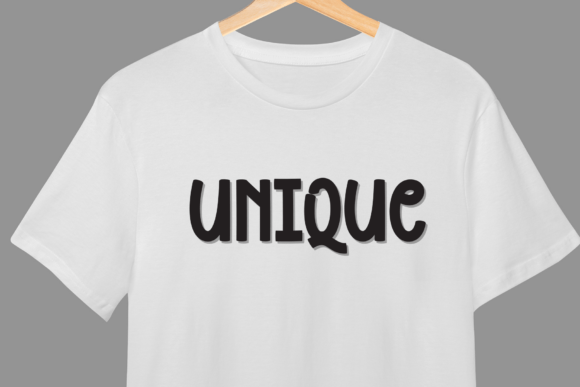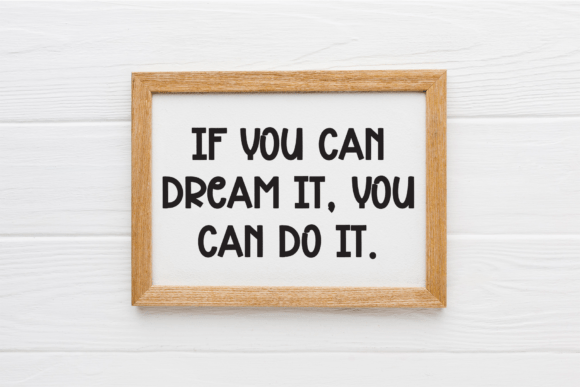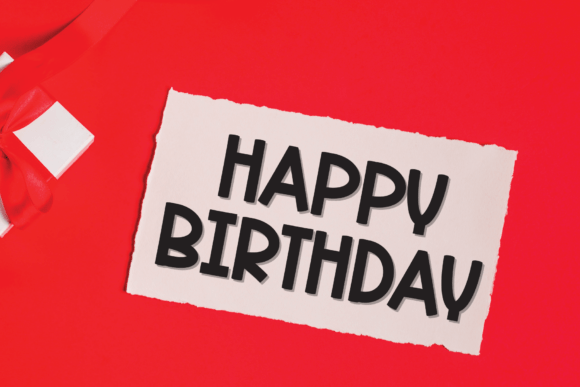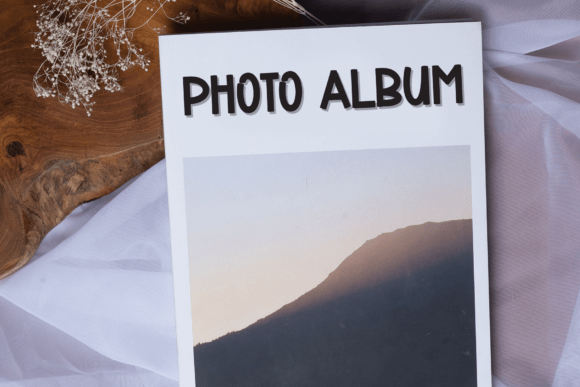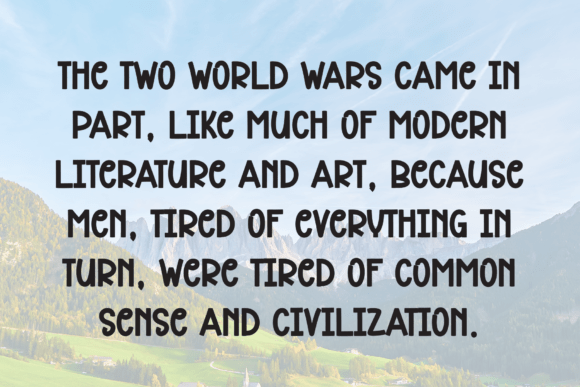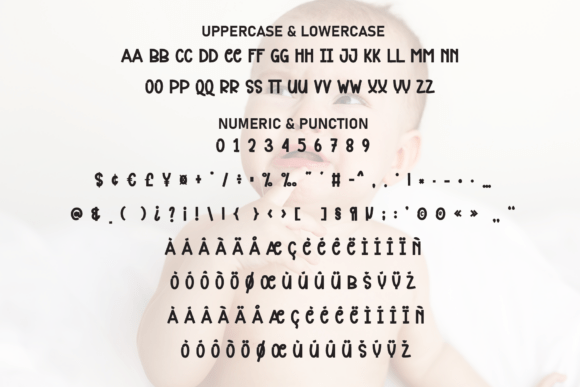
Baby Crush Font: The Perfect Blend of Modern Simplicity and Playful Charm
In the world of typography, fonts play a crucial role in conveying the tone and personality of a brand or design. For designers and crafters looking for a font that embodies a casual yet stylish vibe, Baby Crush Font is an excellent choice. This article will delve into the features, benefits, and uses of Baby Crush Font, exploring how it can elevate your designs and add a fresh touch to your projects.
What is Baby Crush Font?
Baby Crush Font is a casual display font that seamlessly blends modern simplicity with a playful, approachable charm. Its clean shapes, soft edges, and well-balanced letterforms make it an ideal choice for a wide range of design applications. Whether you’re working on posters, branding, packaging, or social media graphics, Baby Crush Font is designed to capture the essence of relaxed design while maintaining clarity and style.
Key Features of Baby Crush Font
- Clean Shapes: Baby Crush Font boasts clean, geometric shapes that provide a modern and sleek appearance. These shapes ensure that the font remains legible and stylish, even at larger sizes.
- Soft Edges: The soft edges of Baby Crush Font add a touch of warmth and approachability, making it perfect for designs that require a friendly and inviting tone.
- Well-Balanced Letterforms: Each letterform in Baby Crush Font is carefully crafted to ensure balance and harmony. This balance contributes to the font’s overall readability and aesthetic appeal.
- Versatile Character: Baby Crush Font has a versatile character that makes it suitable for a variety of design projects. Its unique blend of modern simplicity and playful charm allows it to adapt to different contexts and themes.
- Eye-Catching Appeal: The font’s design ensures that it grabs attention without being overpowering. Its eye-catching appeal makes it perfect for headlines, titles, and other prominent design elements.
Benefits of Using Baby Crush Font
Baby Crush Font offers several benefits that make it a valuable addition to any designer’s toolkit. Some of the key advantages include:
- Enhanced Readability: The clean design and well-balanced letterforms of Baby Crush Font ensure that your text remains readable, even at smaller sizes.
- Unique Personality: Baby Crush Font adds a unique personality to your designs, setting them apart from more traditional or generic fonts.
- Time-Saving: With its versatile character and wide range of applications, Baby Crush Font can save you time in the design process. You can use it across multiple projects without needing to switch to different fonts.
- Professional Look: Despite its casual nature, Baby Crush Font has a professional look that makes it suitable for high-end designs and branding projects.
Uses of Baby Crush Font
Baby Crush Font is incredibly versatile and can be used in a variety of design applications. Some of the most popular uses include:
- Posters: The font’s bold and eye-catching design makes it perfect for posters, flyers, and other promotional materials.
- Branding: Baby Crush Font can help create a unique and memorable brand identity, especially for businesses that want to convey a friendly and approachable image.
- Packaging: The font’s clean and modern design makes it suitable for product packaging, adding a touch of style and sophistication to your products.
- Social Media Graphics: Baby Crush Font can enhance your social media graphics, making them more engaging and visually appealing to your audience.
Tips for Using Baby Crush Font Effectively
To get the most out of Baby Crush Font, consider the following tips:
- Pair with Complementary Fonts: Use Baby Crush Font in combination with other fonts to create visual interest and hierarchy in your designs.
- Experiment with Sizes: Don’t be afraid to experiment with different sizes to find the perfect balance for your design.
- Consider Color: Choose colors that complement the font and enhance its overall appearance.
- Keep it Simple: While Baby Crush Font is designed to be eye-catching, it’s essential to keep your design simple and uncluttered to ensure maximum impact.
Baby Crush Font is a versatile and stylish casual display font that can elevate your designs and add a fresh touch to your projects. Its unique blend of modern simplicity and playful charm makes it perfect for a wide range of applications, from posters and branding to packaging and social media graphics. By incorporating Baby Crush Font into your design toolkit, you can create visually appealing and engaging designs that capture the attention of your audience.
Whether you’re a designer or crafter, Baby Crush Font is an excellent choice for anyone looking to add a touch of personality and style to their work. With its clean shapes, soft edges, and well-balanced letterforms, this font is sure to become a favorite in your design arsenal.